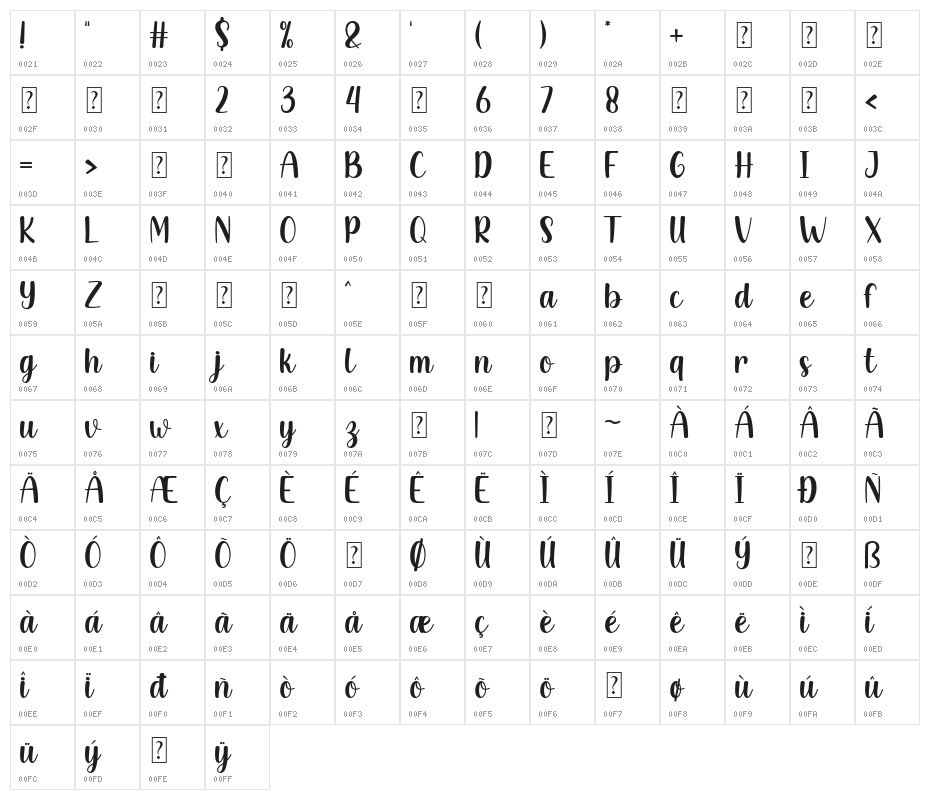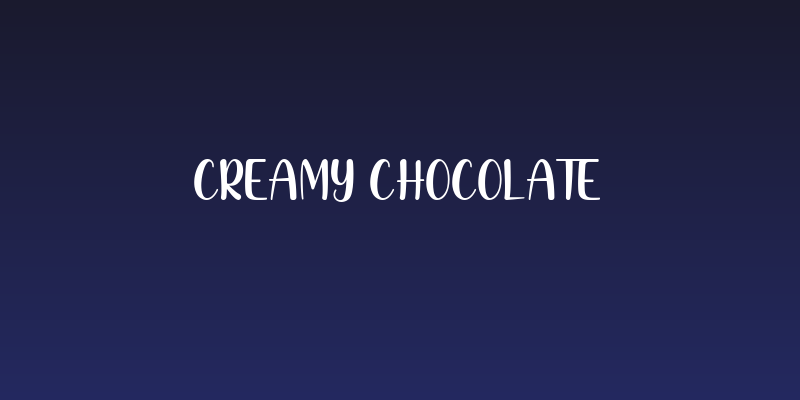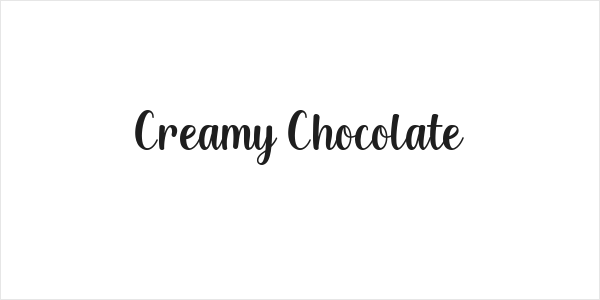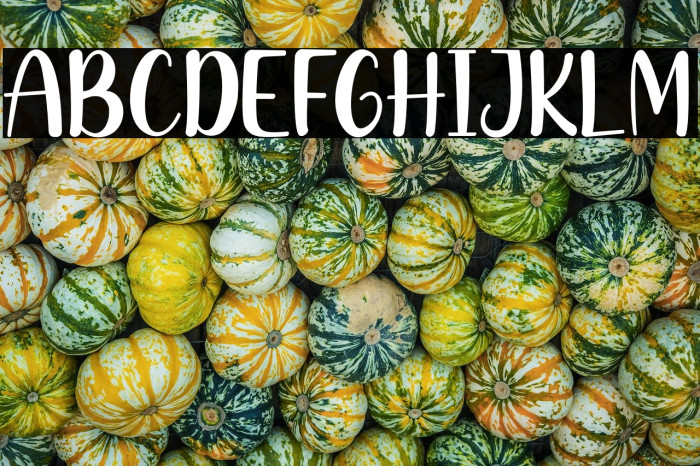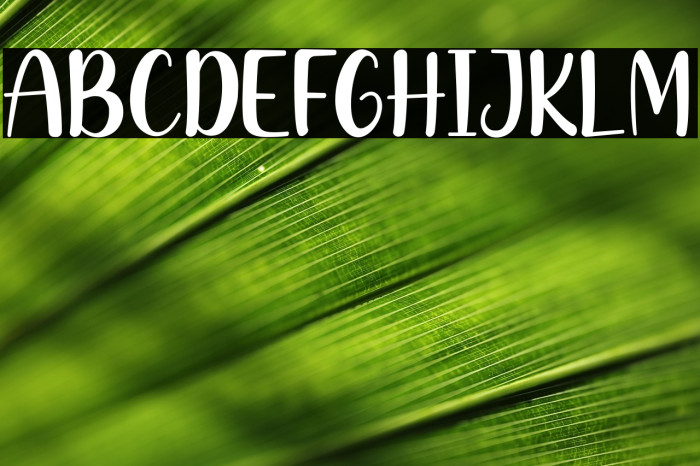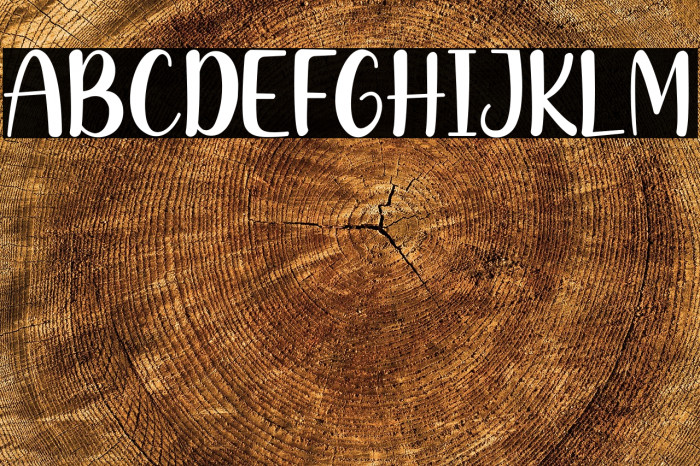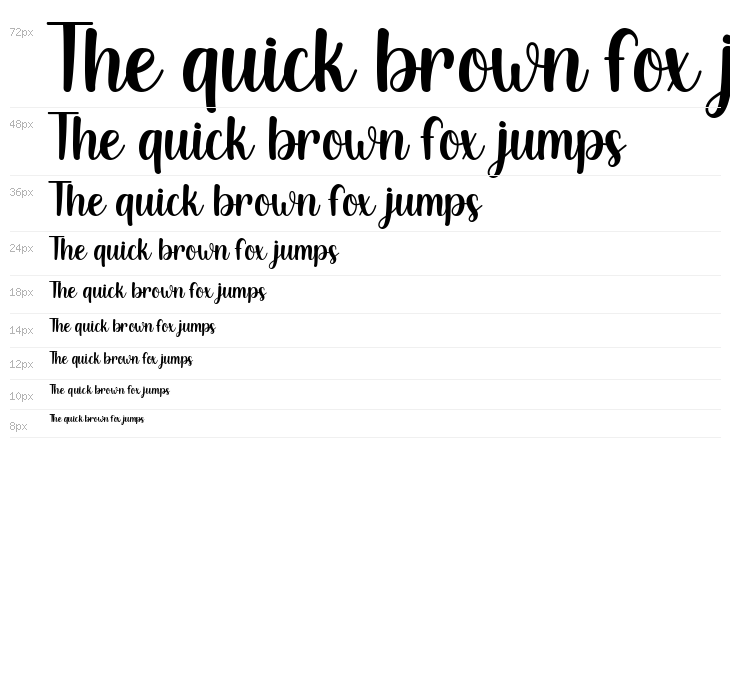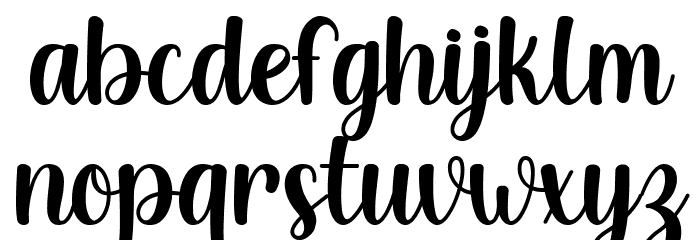
Creamy Chocolate Font
Creamy Chocolate Description
This font exudes a playful and whimsical charm, characterized by its smooth, flowing curves and slightly exaggerated strokes. The uppercase letters are bold and rounded, with a distinctive flair that adds a touch of elegance. The lowercase letters maintain a consistent style, with some characters featuring unique loops and swirls that enhance their visual appeal. The numbers are well-balanced, complementing the overall design with their rounded forms. Special characters are creatively designed, maintaining the font's playful essence. This font is versatile, offering a delightful blend of modern and classic elements, making it suitable for a variety of creative projects.